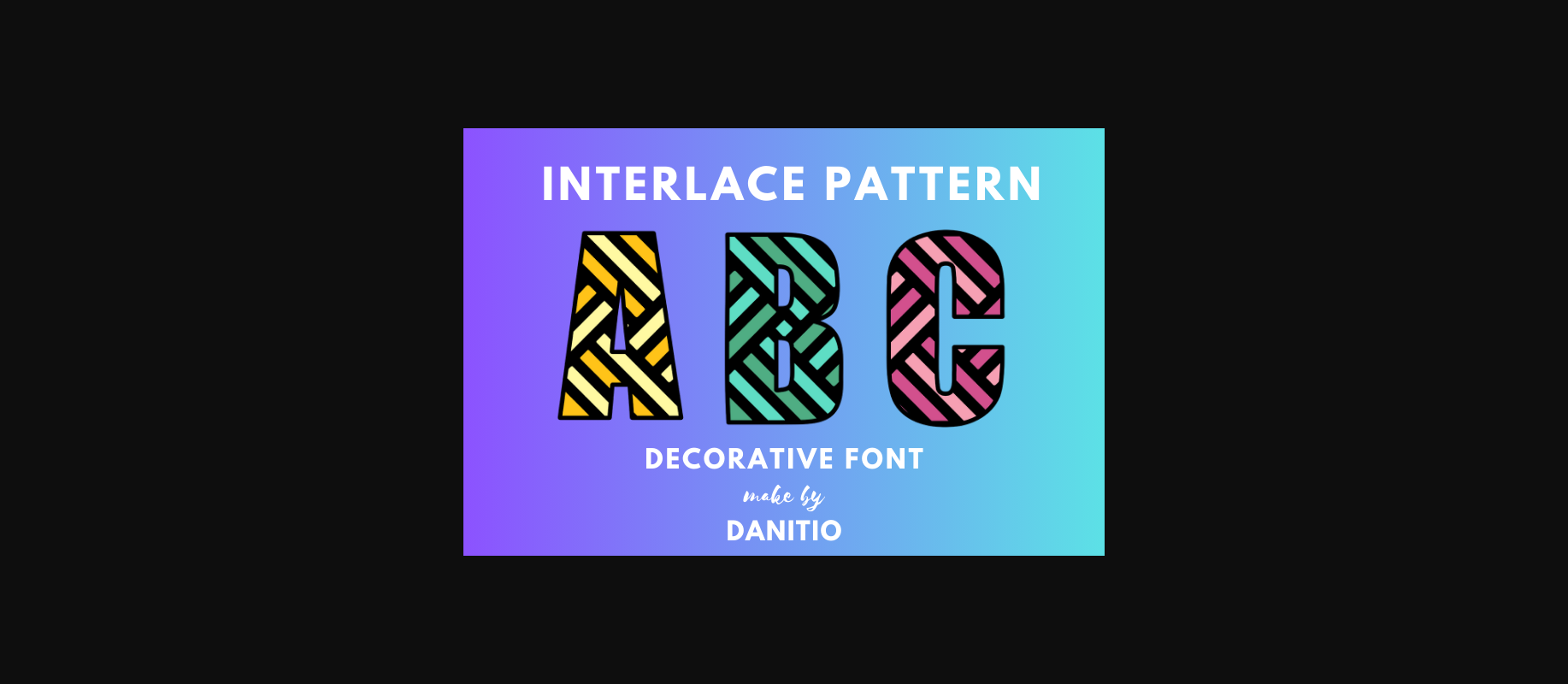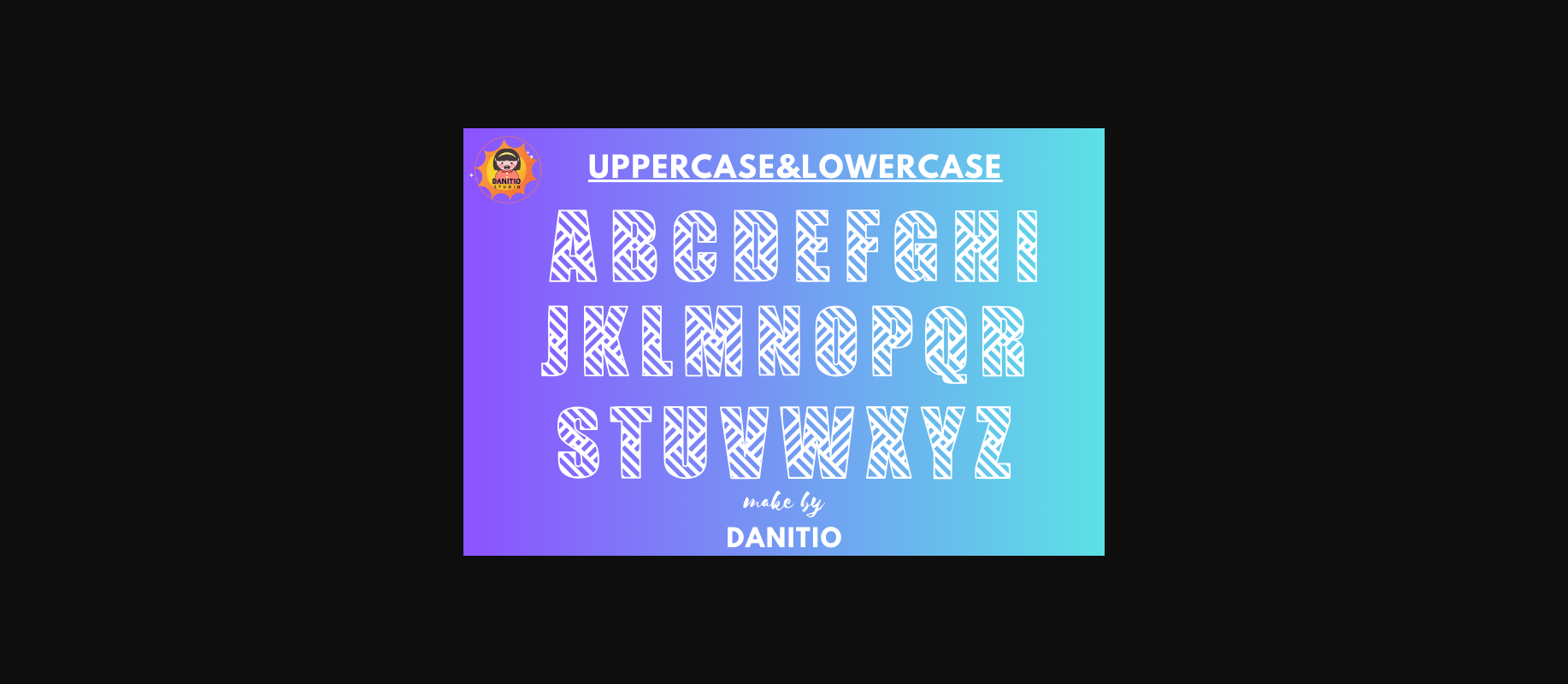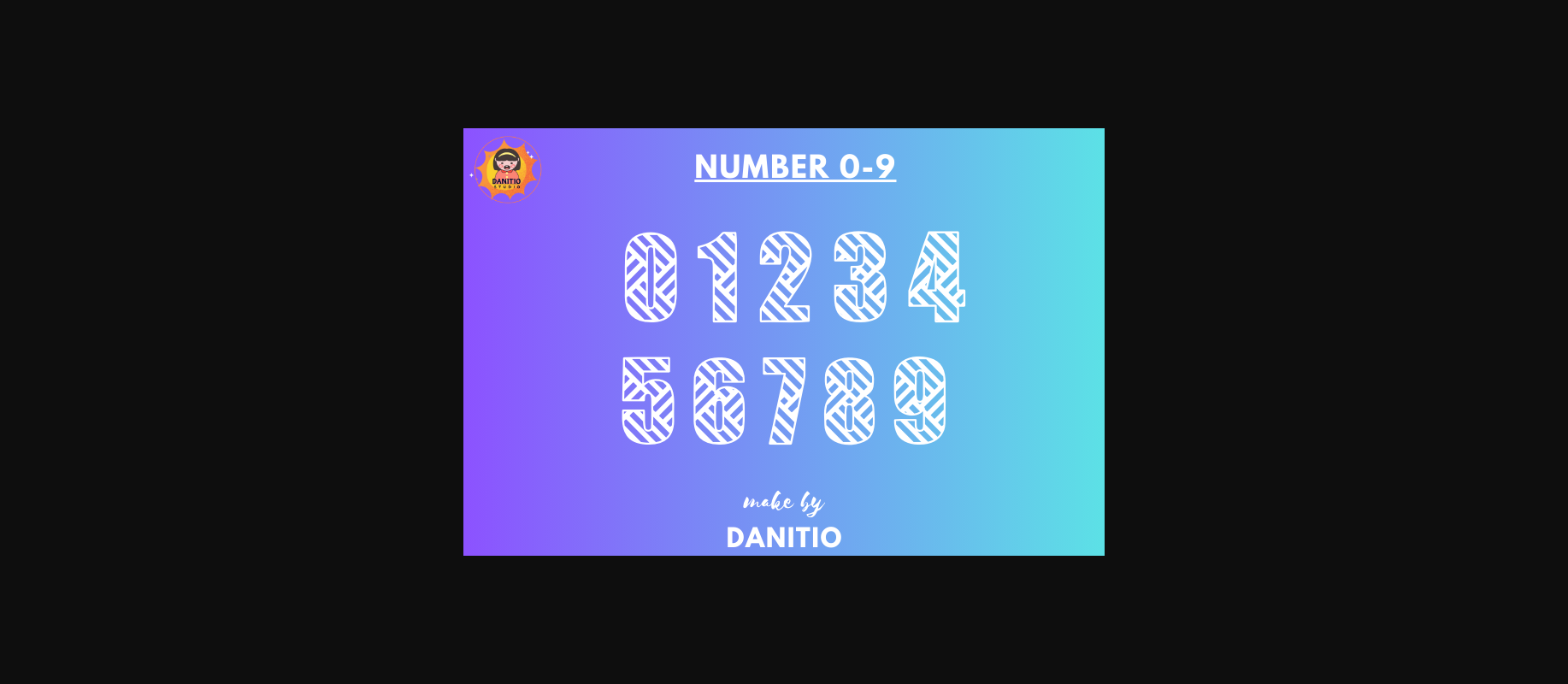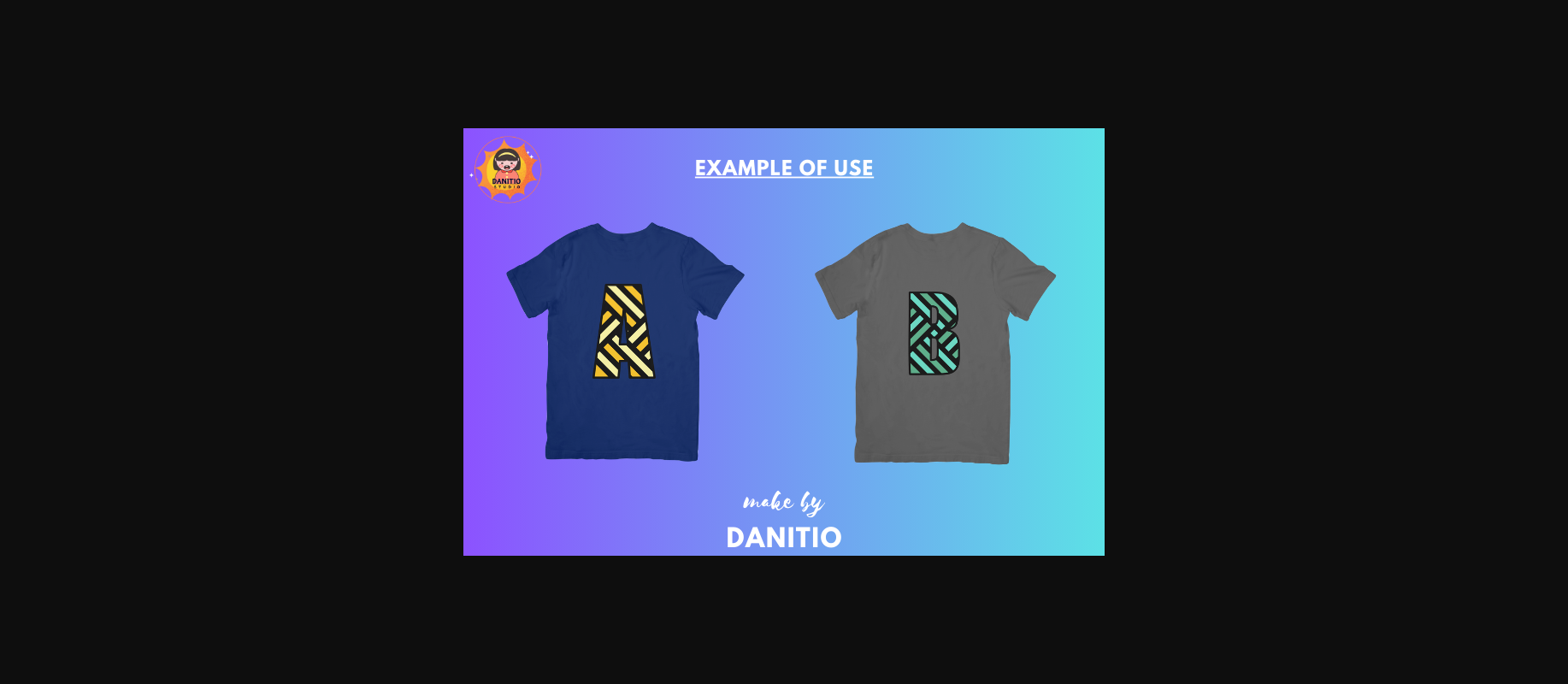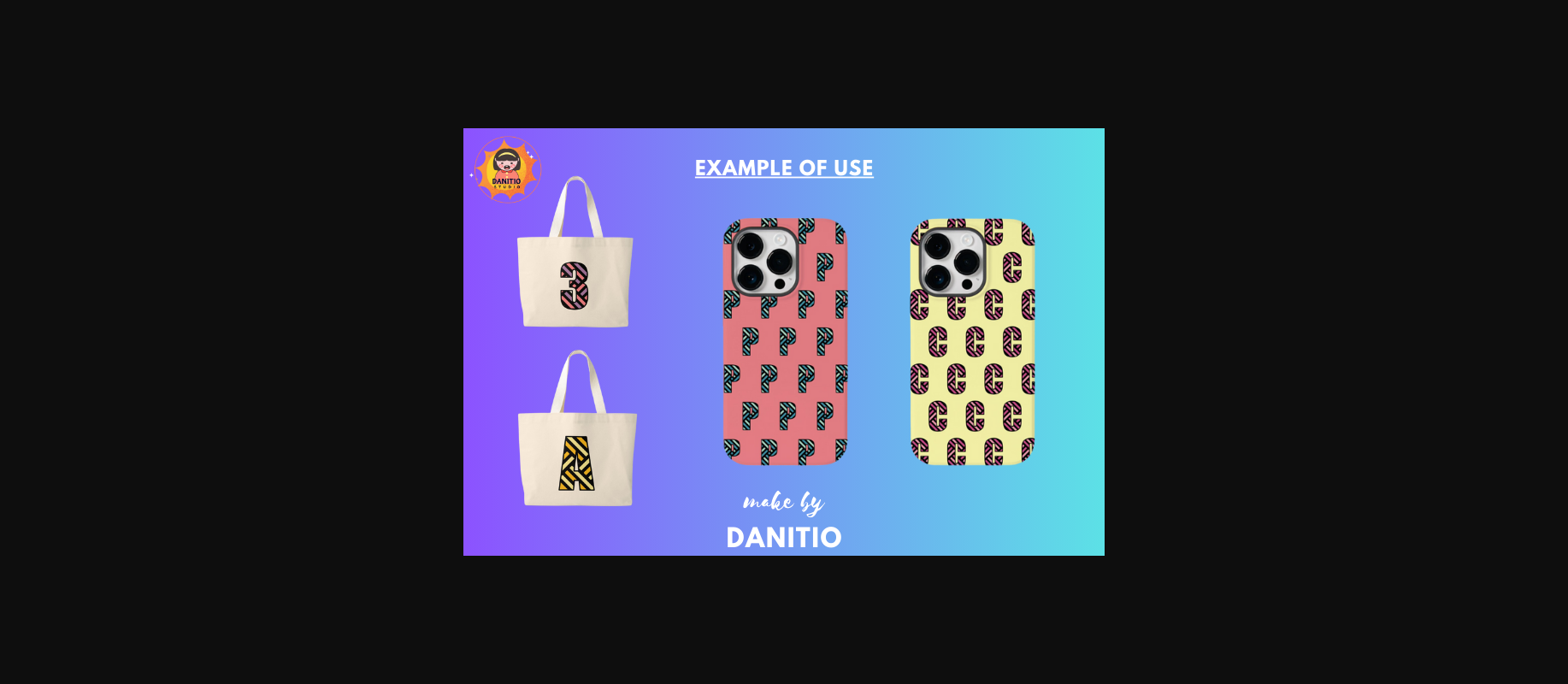
Interlace Pattern Font
About Interlace Pattern Font
Interlace Pattern is a decorative font that combines geometric shapes. They are woven together to create a pattern and mixed with letters Arranged in an alternating pattern, which makes any design Look cool and modern and Suitable for various products that you think are appropriate, such as invitation cards, stationery, mugs, tote bags, pillows, phone cases, or party decorations.